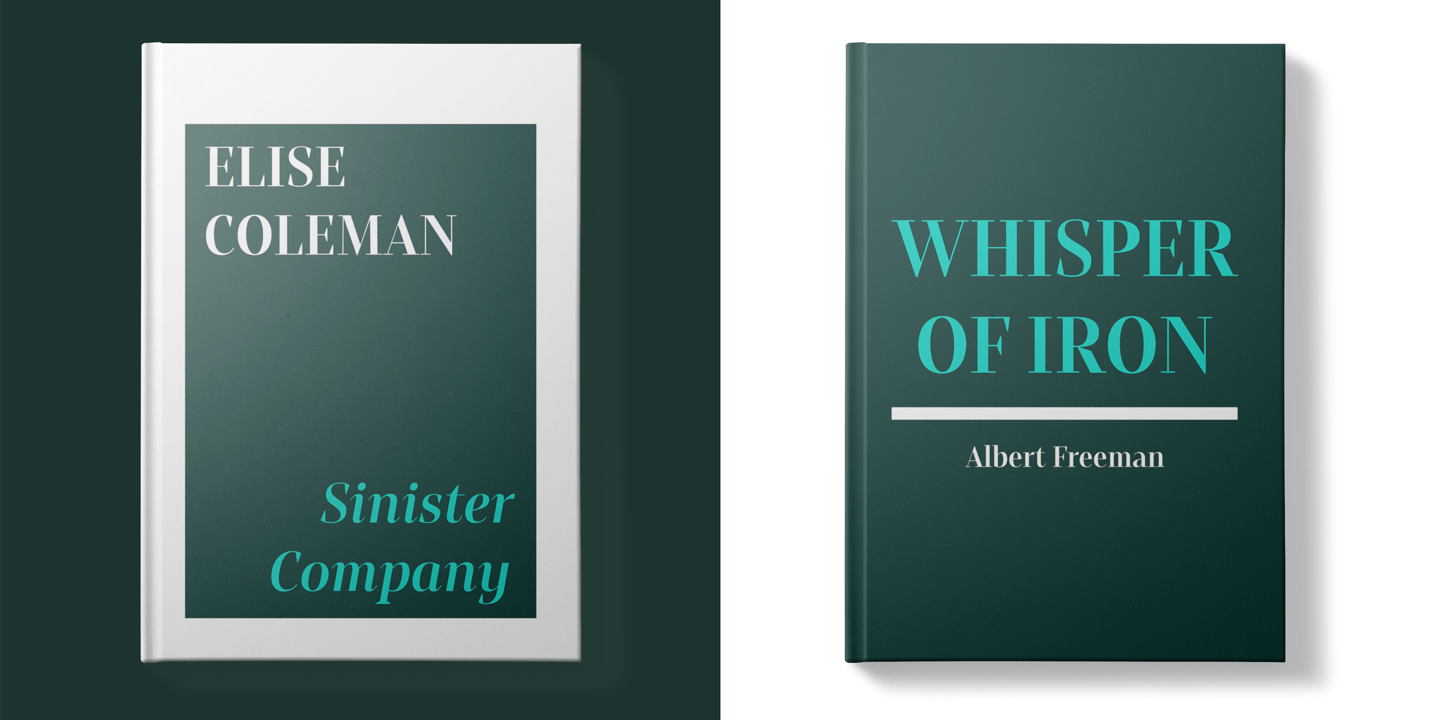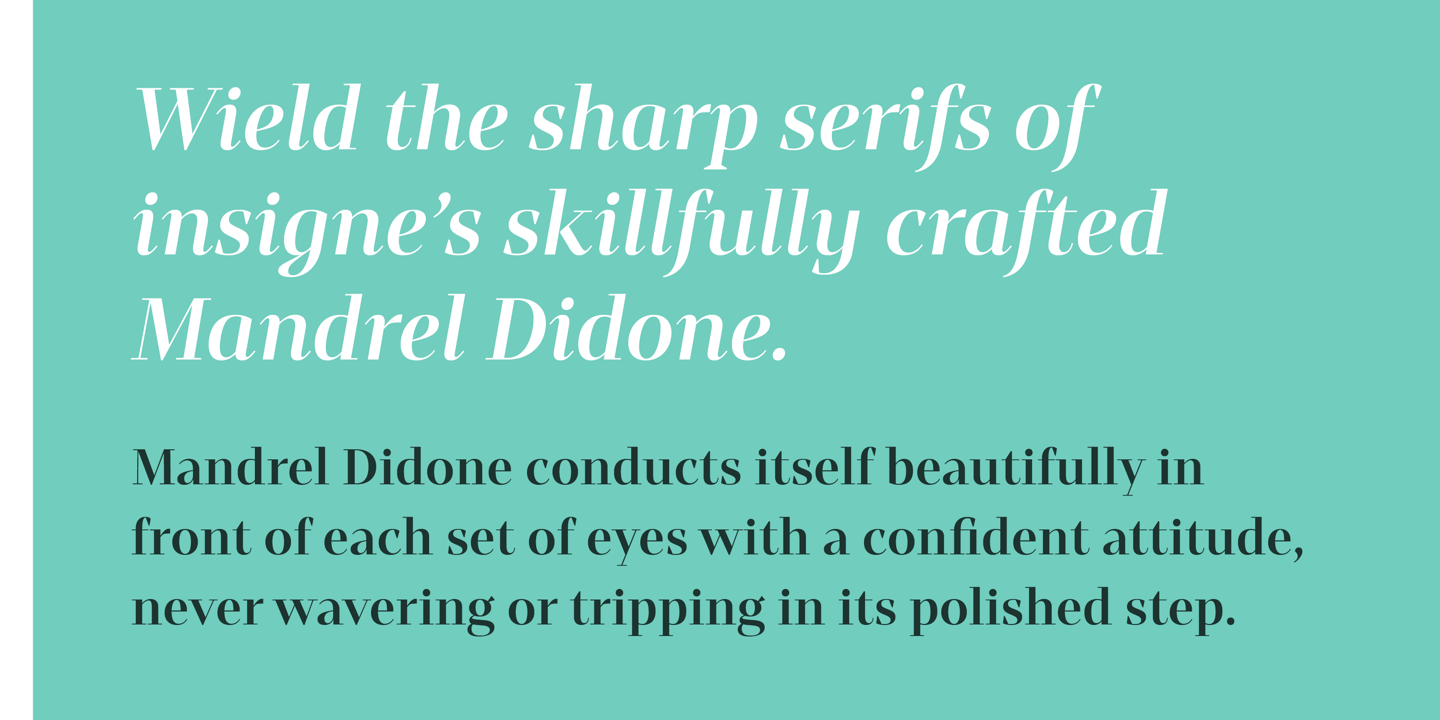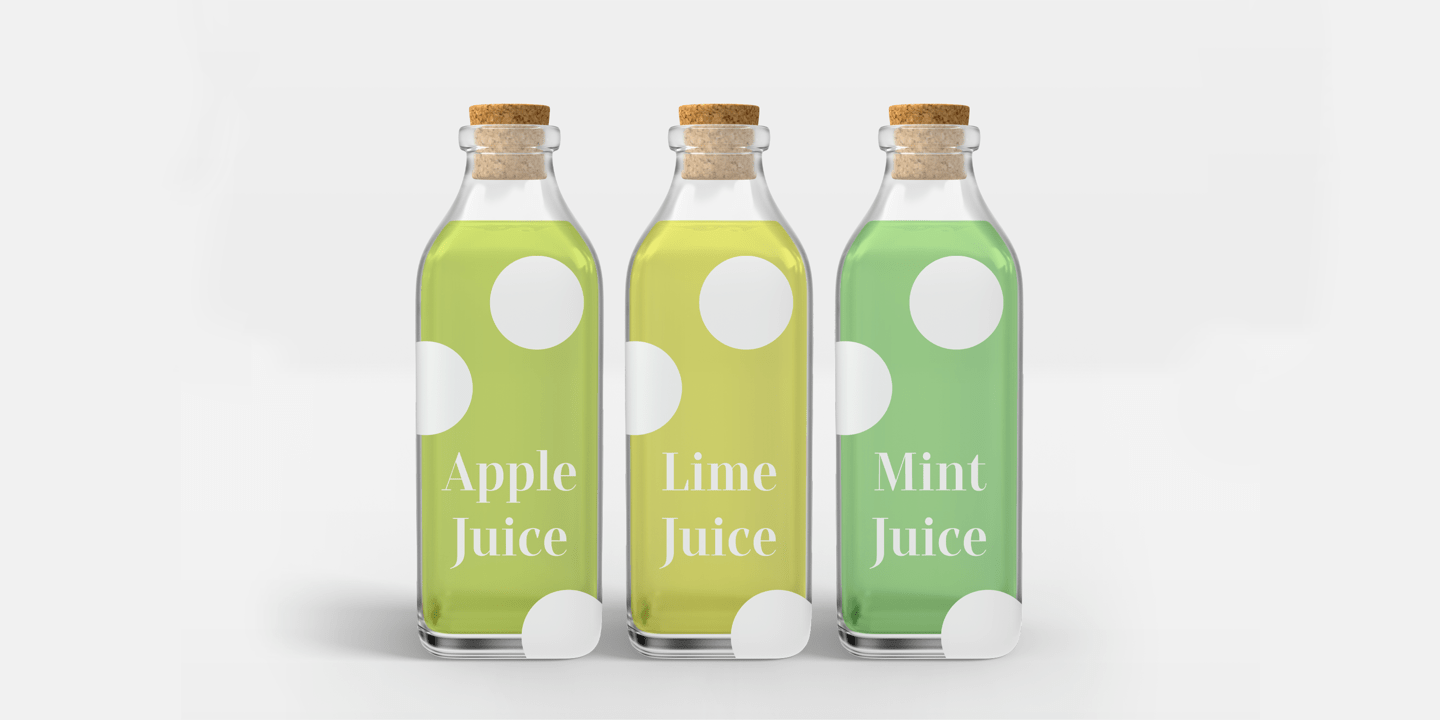
About Mandrel Didone
A new family has sprung from the world of insigne. Mandrel Didone is his name. The face is well-liked by those with whom it seeks an audience because of its courtly demeanor and exquisite look. Mandrel Didone conducts itself beautifully in front of each…